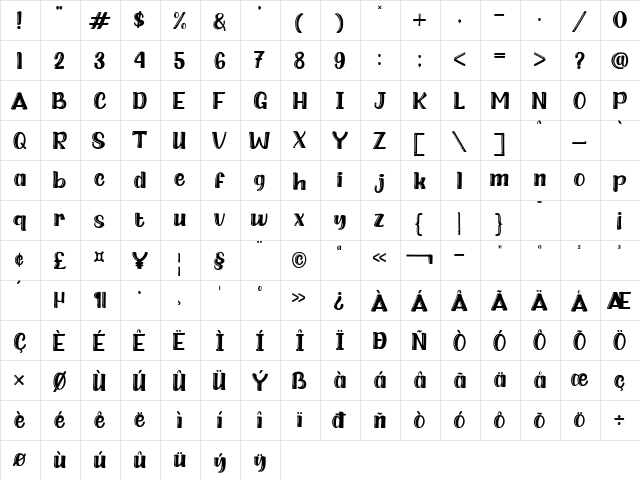
Bubble Jelly Shadow Regular
Design Context for Bubble Jelly Shadow Typeface
Bubble Jelly Shadow trades formality for fun, with bouncy, characterful letterforms that bring warmth and energy to any project.
Font Pairing: Pairs well with a rounded or humanist sans for body copy, maintaining the friendly tone without relying on Bubble Jelly Shadow to carry extended reading.
Pro Tip: Avoid using Bubble Jelly Shadow for long passages of text — it works best for headlines, labels, and short calls to action.